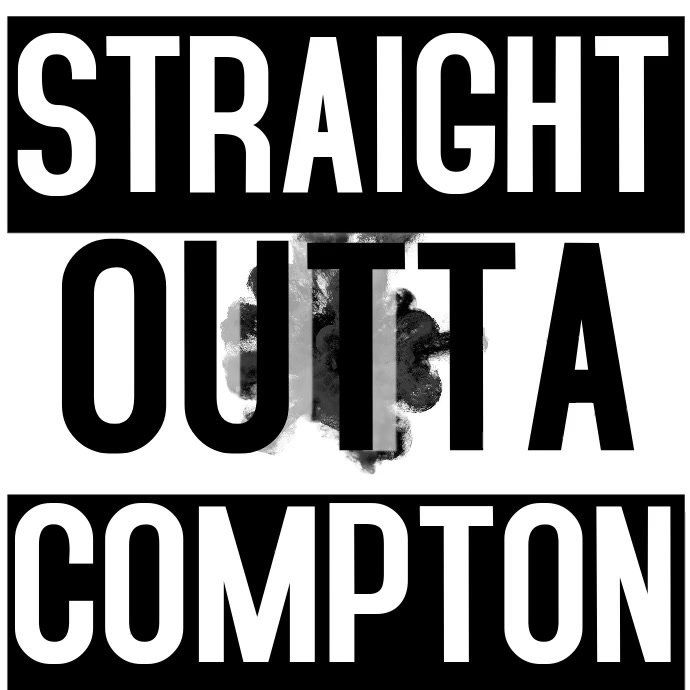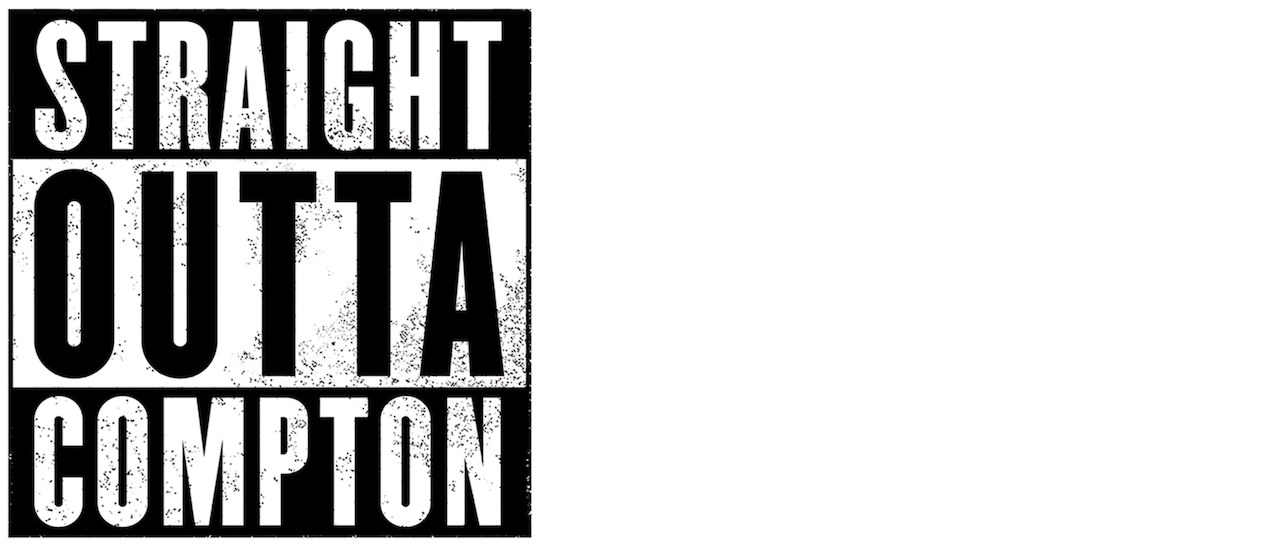
Mistral is used in all caps.
Straight outta compton font type. Generate cool and amazing fonts by using straight outta compton font generator. It is ideal for clear simple graphic design that makes an immediate impact. Straight outta compton font family.
Aug 13, 2015 at 03:38. Autumn in november font free download. Here i wanna discuss the font used for the title of straight outta compton.
And even in the developing purposes like web developing or app developing. The original straight outta logo was seen in the poster of 2015 film straight outta compton depicting the career of gangsta rap group n.w.a. You can customize the font color and outline color next to where you type your text.
It has proper width and space but the height is tall. The knockout font is the font used in the movie straight outta compton. After installing it, you can create almost any type of design along with its help.
A step by step guide. The compacta font is created by itc while the knockout font is created by hoefler & co. I inspected the elements on their site.
Straight outta compton is an american biographical drama film directed by f. And i found out that the font it uses is knockout no. The logo font of the film is very similar to “knockout font” or “compacta font”.
The logo font of the film is very similar to “knockout font” or “compacta font”. It’s offered in three weighrs, regular, bold and light. Both of these font families have belonged to sans serif fonts.
It has similar look to a serif font by alias called cactus black. And they feature the most alluring look, flawless style and effectively can containable. Memphis bold wooden type fonts.
Compton brings the spirit of th 60s and 70s to the present day. You can see a waterfall example of it at this link catusblack and some other very quickly put together examples that are close follow as attachment. The film revolves around the rise and fall of the compton, california hip hop group n.w.a.
The compacta font is created by itc while the knockout font is created by hoefler & co. This font style contains both uppercase and lowercase letters including numbers and symbols that extend the. The font used for the film title in the poster is champion gothic featherweight, a sans.
The “straight outta” photos show no signs of slowing down on social media. Straight outta compton font is a sans serif font that has a solid thick texture. Autumn in november font is a type of script typeface font family.
Gist rough yellow design studio. All three are part of a san serif font family that have a com. This font is designed by hoefler & co.
For example, this coolest font can use for logo, official uses, business cards, title designing, special events card. As reported by the inquisitr, the “straight outta” meme generator, found on straightouttasomewhere.com, initially displayed 20,000 to 30,000 instagram usages.by saturday, that number of “straight outta. Here i wanna discuss the font used for the title of straight outta compton.
So, it totally depends on you that which family you have chosen for your designs. This typeface is inspired by the font that is used in the american biographical movie named straightouttacompton. 40 styles from $20.00 (1 free) gist yellow.